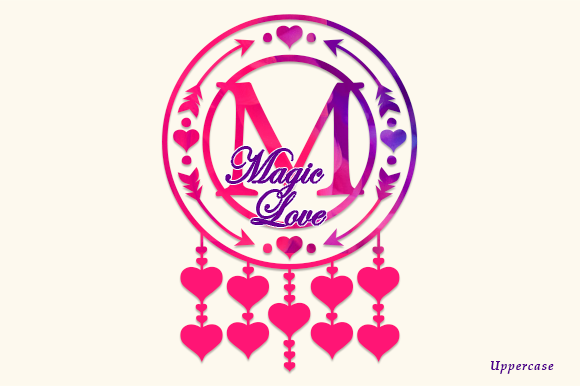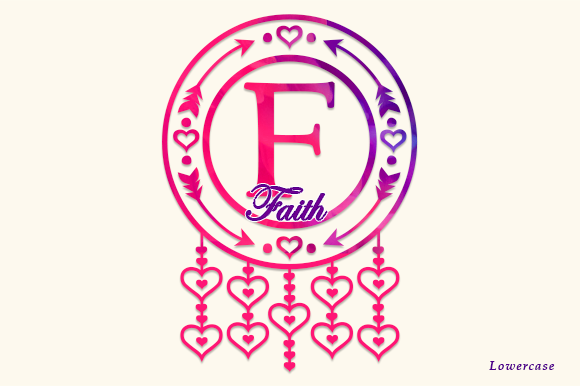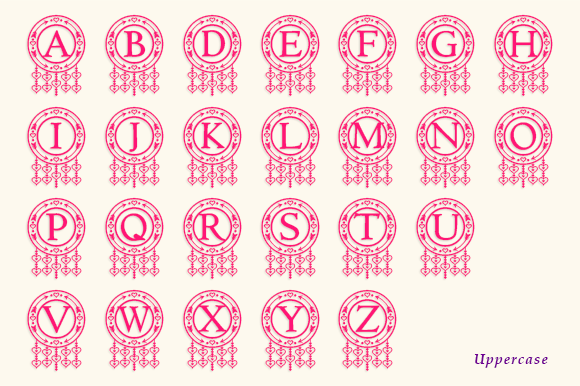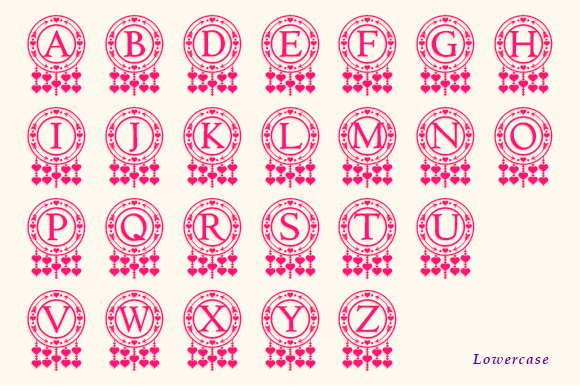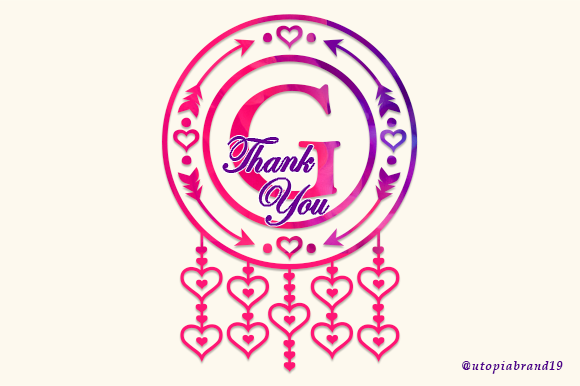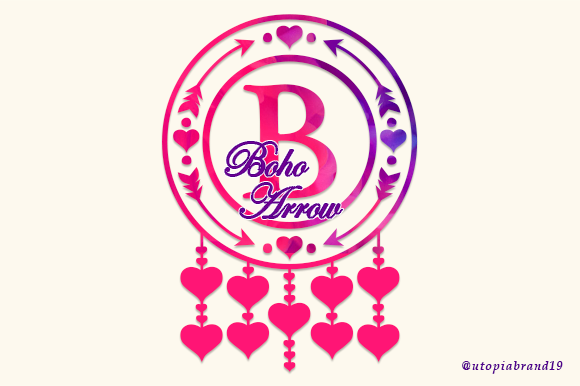
Have you ever sat at your desk, surrounded by scattered papers, colorful pens, and an endless array of design possibilities, and suddenly, an idea strikes? The creative spark that ignites the flame of inspiration is a magical thing, and it’s exactly what happened when the Boho Arrow Monogram Font was born.
This charming and unique decorative font is designed to add a touch of whimsy to your letters, wedding invitations, and favorite design ideas. By incorporating the Boho Arrow Monogram Font into your work, you’ll be amazed at the outcome – it’s a game-changer for designers looking to elevate their style and add a personal touch to their projects.
For designers seeking to stand out from the crowd, the Boho Arrow Monogram Font is a valuable addition to their toolkit. Its versatility and charm make it the perfect choice for adding a touch of bohemian flair to any design project.
Boho Arrow Monogram Font Key Features
- Unique Characteristics: The Boho Arrow Monogram Font features a unique blend of bohemian and monogram styles, with intricate arrow designs and elegant lines.
- Monogram Variations: The font includes multiple monogram variations, allowing designers to create unique and personalized designs.
- Font Style: The font is available in uppercase and lowercase letters, as well as numbers and punctuation marks, making it a versatile tool for designers.
Designer Review: Boho Arrow Monogram Font
The Boho Arrow Monogram Font is a stylish and unique addition to any design project. I found it to be particularly effective for creating invitations, party decorations, and other festive materials ✨. The font’s bohemian aesthetic and intricate arrow design elements evoke a sense of whimsy and playfulness, making it perfect for projects that require a touch of elegance and charm.
One of the standout features of this font is its versatility. It can be used for both digital and print designs, and its high-resolution quality ensures that it looks great on a variety of mediums ✨. The font also includes a range of customization options, including different arrow styles and sizes, which can be easily adjusted to fit your design needs.
- ⚠️ Complexity: The font’s intricate design elements can make it difficult to read and use, particularly for those who are not familiar with bohemian design aesthetics.
- ⚠️ Size limitations: The font may not be suitable for very large or small font sizes, as its intricate design elements may become distorted or difficult to read.
Overall, I would give the Boho Arrow Monogram Font a solid 4 out of 5 stars. While it may have some limitations, its unique design aesthetic and versatility make it a great addition to any design project. With a little creativity and experimentation, this font can help you create truly unique and eye-catching designs that will stand out from the crowd ✨.
The Boho Arrow Monogram Font is ideal for creating whimsical and bohemian-inspired designs.
Use it to create custom invitations, greeting cards, or wedding stationery.
Experiment with different font sizes, colors, and arrangements to achieve a unique look.